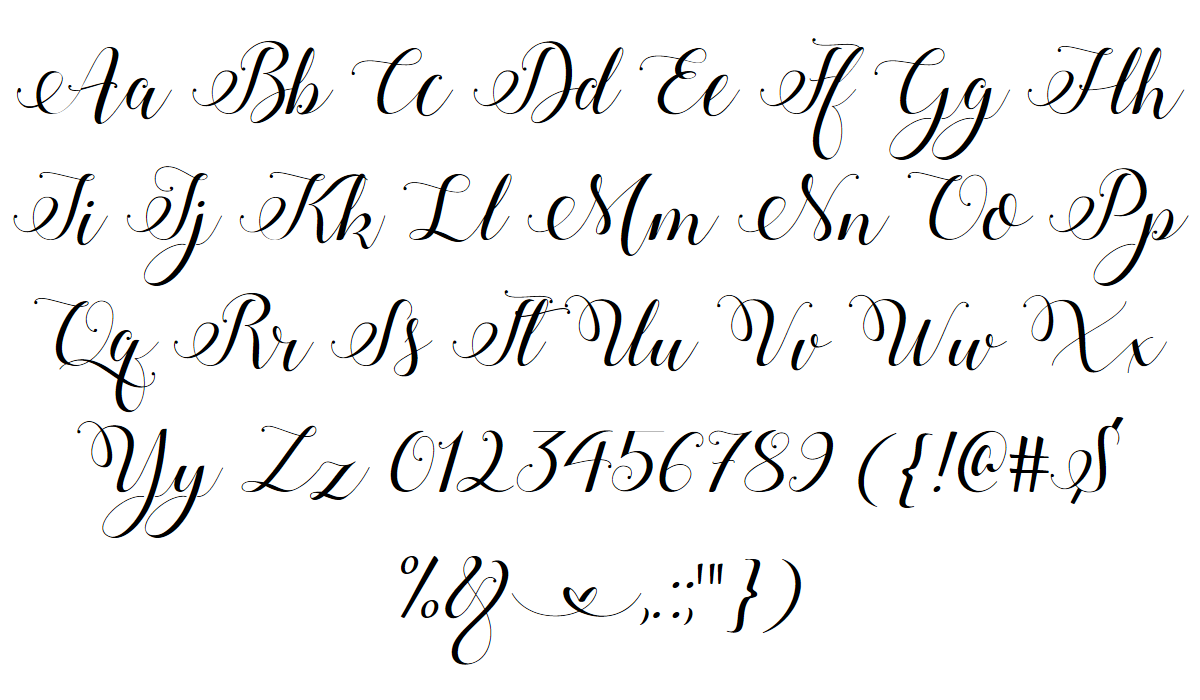
Congrats calligraphy font free download. The writing is readable but is usually extravagant and embellished with flourishes. Ideal for logos handwritten quotes product packaging header poster merchandise social media greeting cards. Designed to combine perfectly and allow you to create stunning hand lettering quickly and easily. 253291 downloads 17 yesterday free for personal use 2 font files.
Submit a font. It usually involves a nibbed pen or brush. Congrats calligraphy designed and shared by mistis fonts. Free fonts for commercial use new fresh fonts most popular fonts alphabetic fonts largest font families trending fonts home congrats calligraphy font hello you seem to have javascript turned off.
Download donate to author. Congrats calligraphy font is a script calligraphy font designed by mistis fonts. The congrats calligraphy font has been downloaded 13317 times. The height of calligraphy was reached in the middle age where monks developed the narrow writing style called gothic allowing more words to fit on a single line as paper was expensive at the time.
Download the congrats calligraphy font by mistis fonts. The main sub styles are traditional calligraphy and modern calligraphy. Congrats calligraphy font free license. Introduction congrats calligraphy font.
Calligraphy is an artistic writing style where the pressure is varied to create thick and thin lines all in a single stroke. Download and install the congrats calligraphy free font on your device as well as see a complete character set use for personal professional use. Calligraphy is an ancient writing technique using flat edged pens to create artistic lettering using thick and thin lines depending on the direction of the stroke.